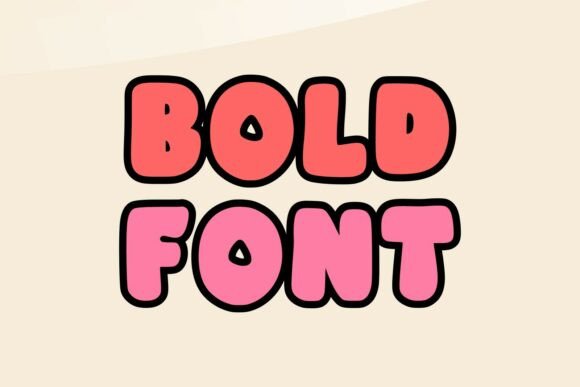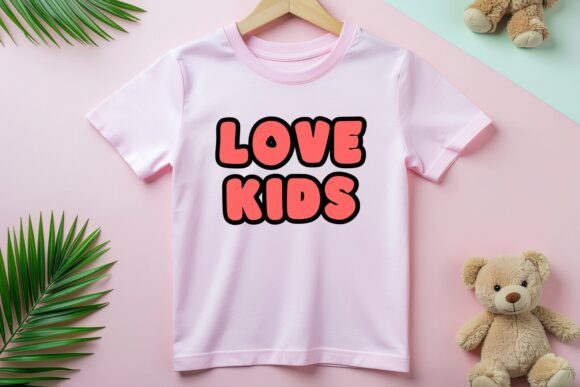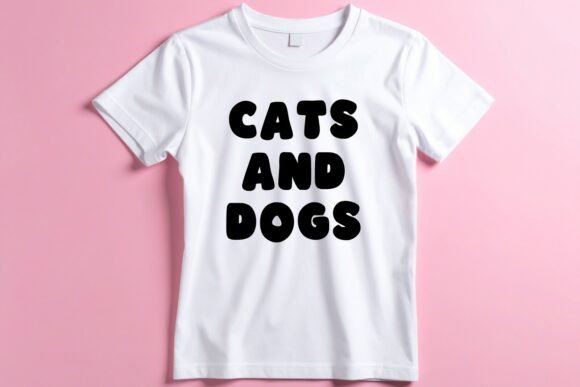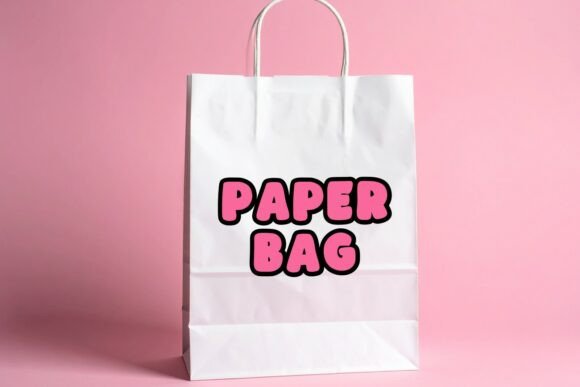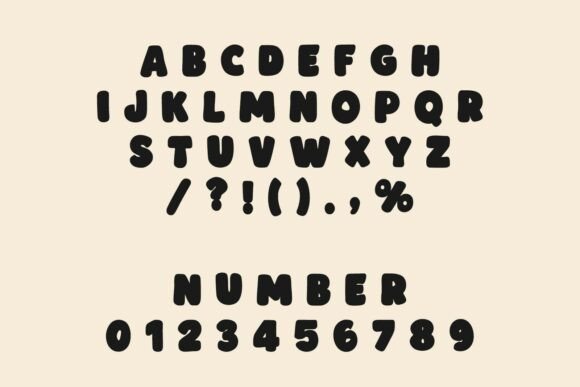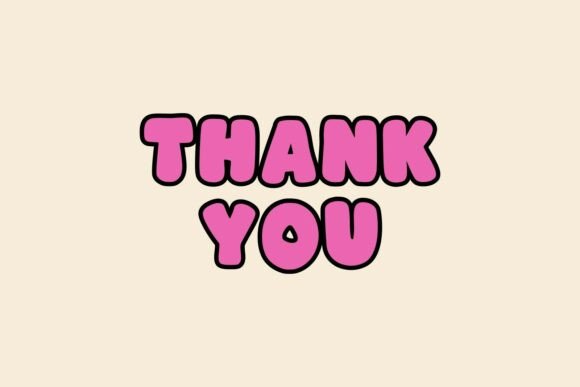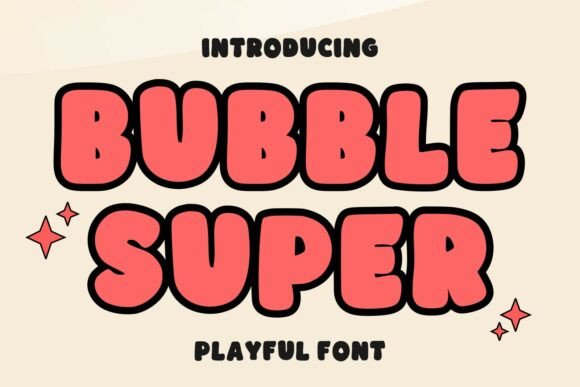
Bubble Super Font: The Playful and Adorable Choice for Your Designs
Are you looking for a font that can add a touch of playfulness and cuteness to your designs? Look no further than the Bubble Super Font! This bubble-style display font is perfect for creating fun and engaging designs for children, as well as for brands that want to convey a friendly and approachable vibe.
What is Bubble Super Font?
Bubble Super Font is a playful and adorable bubble-style display font with a soft, rounded, and kawaii look. The font features bold and bubbly letterforms that create a cheerful, friendly, and eye-catching appearance. Its unique design makes it perfect for a wide range of applications, from children’s designs and cute branding to logos, stickers, posters, packaging, social media graphics, and fun headline titles.
Characteristics of Bubble Super Font
The Bubble Super Font has several characteristics that make it stand out from other fonts. Some of its key features include:
- Soft and rounded design: The font features soft and rounded letterforms that give it a friendly and approachable look.
- Kawaii style: The font has a kawaii (cute) style that makes it perfect for designs that require a playful and adorable touch.
- Bold and bubbly letterforms: The font’s bold and bubbly letterforms create a cheerful and eye-catching appearance.
Uses of Bubble Super Font
The Bubble Super Font is versatile and can be used for a wide range of applications, including:
- Children’s designs: The font is perfect for creating fun and engaging designs for children, such as books, games, and educational materials.
- Cute branding: The font is ideal for brands that want to convey a friendly and approachable vibe, such as beauty and lifestyle brands.
- Logos and stickers: The font’s bold and bubbly letterforms make it perfect for creating eye-catching logos and stickers.
- Posters and packaging: The font can be used to create fun and engaging posters and packaging for products.
- Social media graphics: The font is perfect for creating fun and engaging social media graphics, such as Facebook and Instagram posts.
- Fun headline titles: The font can be used to create fun and eye-catching headline titles for articles and blog posts.
Why Choose Bubble Super Font?
There are several reasons why you should choose the Bubble Super Font for your designs. Some of the benefits of using this font include:
- Unique and playful design: The font has a unique and playful design that will make your designs stand out from the crowd.
- Easy to read: The font is easy to read, even at small sizes, making it perfect for a wide range of applications.
- Versatile: The font is versatile and can be used for a wide range of applications, from children’s designs to branding and advertising.
- High-quality: The font is of high-quality, making it perfect for professional designs.
Tips for Using Bubble Super Font
Here are some tips for using the Bubble Super Font in your designs:
- Use it for headlines: The font is perfect for headlines and titles, as it creates a fun and eye-catching appearance.
- Pair it with other fonts: The font can be paired with other fonts to create a unique and interesting design.
- Use it for children’s designs: The font is perfect for children’s designs, such as books, games, and educational materials.
- Experiment with colors: The font can be used with a wide range of colors, so experiment with different colors to find the one that works best for your design.
The Bubble Super Font is a playful and adorable bubble-style display font that is perfect for creating fun and engaging designs. Its unique design, versatility, and high-quality make it a great choice for designers and crafters. Whether you’re creating designs for children, branding, or advertising, the Bubble Super Font is a great choice. So why not give it a try and see how it can add a touch of playfulness and cuteness to your designs?